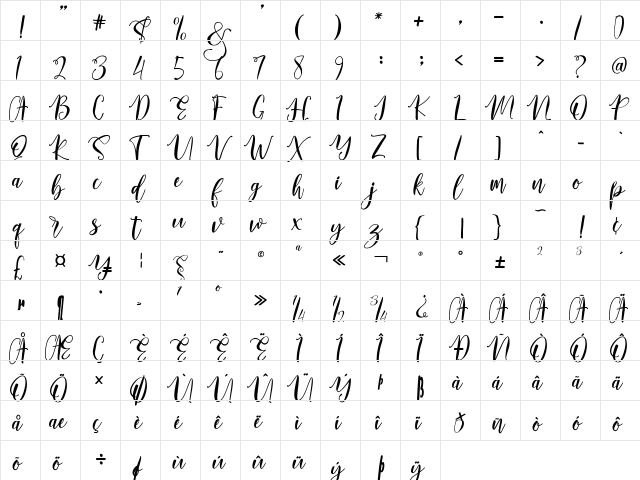
Lovely Buttering Script Regular
Design Context for Lovely Buttering Script Typeface
Lovely Buttering Script brings a calligraphic fluidity to the page — its connecting strokes and expressive curves give it an unmistakably human quality.
Font Pairing: Combine Lovely Buttering Script with a simple geometric sans for maximum contrast — the tension between flowing curves and clean structure is a classic typographic pairing.
Pro Tip: Use Lovely Buttering Script for short runs of text — names, titles, or taglines. Extended body copy in script faces tires the eye quickly.